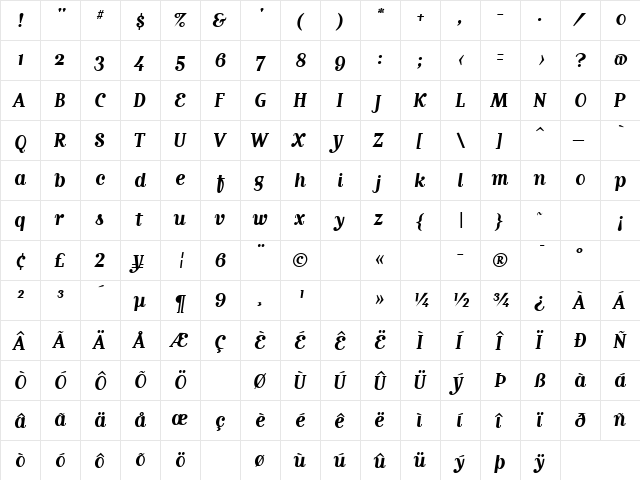
MatrixScriptBoldOldstyle Bold Font Preview
Design Context for MatrixScriptBoldOldstyle Typeface
MatrixScriptBoldOldstyle flows with the natural rhythm of handwritten lettering, making it ideal for designs that call for warmth and personal expression. The heavy weight commands attention and anchors typographic hierarchies.
Font Pairing: Combine MatrixScriptBoldOldstyle with a simple geometric sans for maximum contrast — the tension between flowing curves and clean structure is a classic typographic pairing.
Pro Tip: Pair MatrixScriptBoldOldstyle with a clean sans-serif for supporting text. The contrast between fluid script and geometric structure creates an elegant typographic hierarchy.